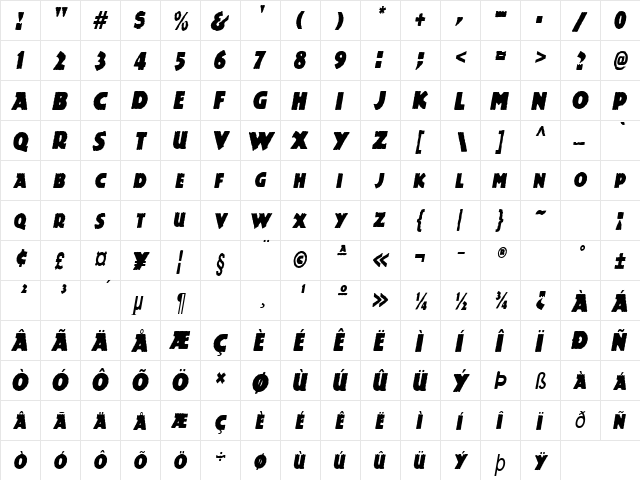
Design Context for DinosauriaCondensed Typeface
DinosauriaCondensed is a composed and adaptable typeface that performs quietly and consistently across a wide range of design contexts. The slanted form adds forward momentum and visual energy. The condensed width makes it efficient for tight spaces without sacrificing legibility.
Pro Tip: Try DinosauriaCondensed for annotation and caption copy alongside an upright companion — the contrast in angle creates a dynamic but ordered typographic system.